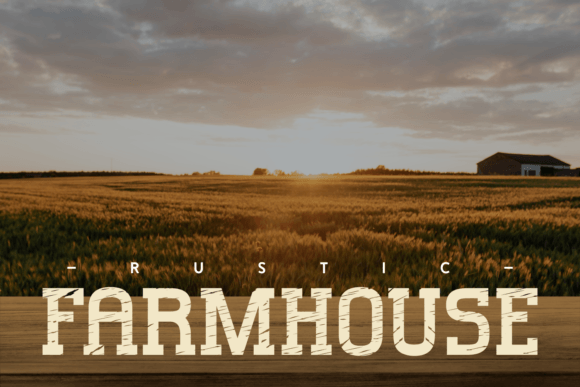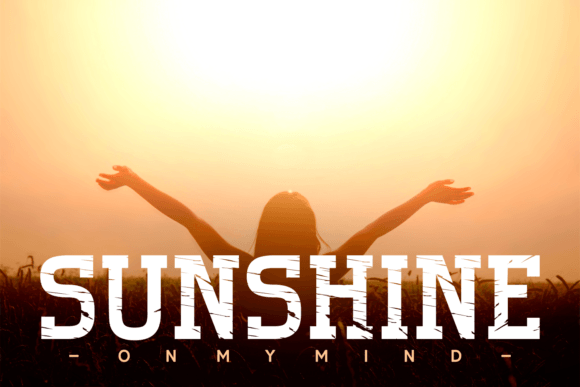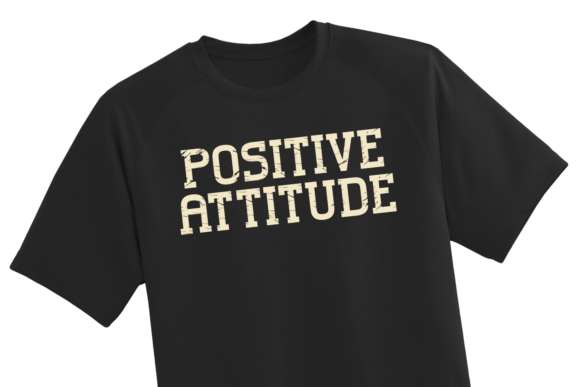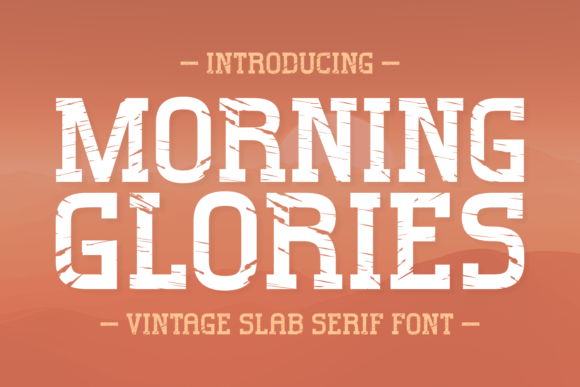
Introduction to Morning Glories Font
Morning Glories is a vintage and stylish slab-serif font that is the perfect choice for adding a retro feel to your designs.
Its bold and blocky letterforms add a touch of class and sophistication, making it a great choice for logos, headlines, and more .